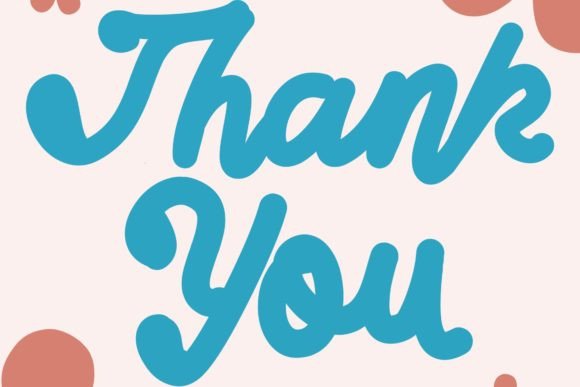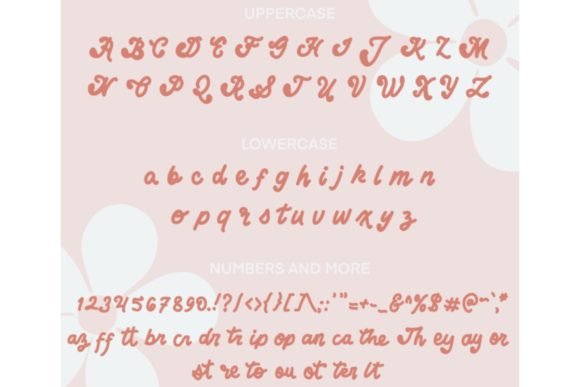
Dalia Font: The Cute and Quirky Display Font to Elevate Your Designs
Are you tired of using the same old fonts in your designs? Do you want to add a touch of joy and whimsy to your creative projects? Look no further than the Dalia font! This adorable display font is sure to make your designs stand out and leave a lasting impression on your audience.
What is Dalia Font?
Dalia is a cute and quirky display font that is perfect for adding a playful touch to your designs. Its unique and irregular shape makes it a standout font that will add visual interest to any project. Whether you’re a designer, crafter, or DIY enthusiast, Dalia font is a great addition to your font collection.
Key Features of Dalia Font
- Cute and Quirky: Dalia font has a playful and whimsical feel that will add a joyful touch to your designs.
- Display Font: Dalia is a display font, making it perfect for headlines, titles, and other prominent text elements.
- Unique and Irregular Shape: Dalia’s irregular shape sets it apart from other fonts and makes it a great choice for designers looking for something different.
- Easy to Read: Despite its quirky shape, Dalia font is easy to read and understand, making it perfect for use in a variety of design projects.
How to Use Dalia Font in Your Designs
Dalia font is versatile and can be used in a variety of design projects, including:
- Graphic Design: Use Dalia font in your graphic design projects, such as brochures, flyers, and posters.
- Digital Design: Add Dalia font to your website, social media graphics, and email templates to give them a playful touch.
- Crafting: Use Dalia font in your crafting projects, such as handmade cards, scrapbooking, and DIY signs.
- Branding: Use Dalia font in your branding materials, such as logos, business cards, and letterheads.
Why Choose Dalia Font?
There are many reasons why you should choose Dalia font for your design projects. Here are a few:
- Unique and Eye-Catching: Dalia font is a unique and eye-catching font that will make your designs stand out.
- Versatile: Dalia font can be used in a variety of design projects, from graphic design to crafting.
- Fun and Playful: Dalia font adds a fun and playful touch to your designs, making them more engaging and enjoyable.
Tips for Using Dalia Font Effectively
Here are a few tips for using Dalia font effectively in your designs:
- Use it Sparingly: Use Dalia font sparingly to avoid overwhelming your design. It’s best used as an accent font to add visual interest.
- Pair it with Other Fonts: Pair Dalia font with other fonts to create a unique and interesting combination.
- Experiment with Colors: Experiment with different colors to find the perfect combination that works with Dalia font.
- Have Fun: Most importantly, have fun with Dalia font! It’s a playful font that’s meant to bring joy and whimsy to your designs.
| Font Name | Dalia Font |
| Author | Little Nolia Graphics |
In conclusion, Dalia font is a cute and quirky display font that is perfect for adding a playful touch to your designs. Its unique and irregular shape makes it a standout font that will add visual interest to any project. With its ease of use, versatility, and fun and playful vibe, Dalia font is a great addition to any designer’s font collection. So why not give it a try and see how it can elevate your designs?